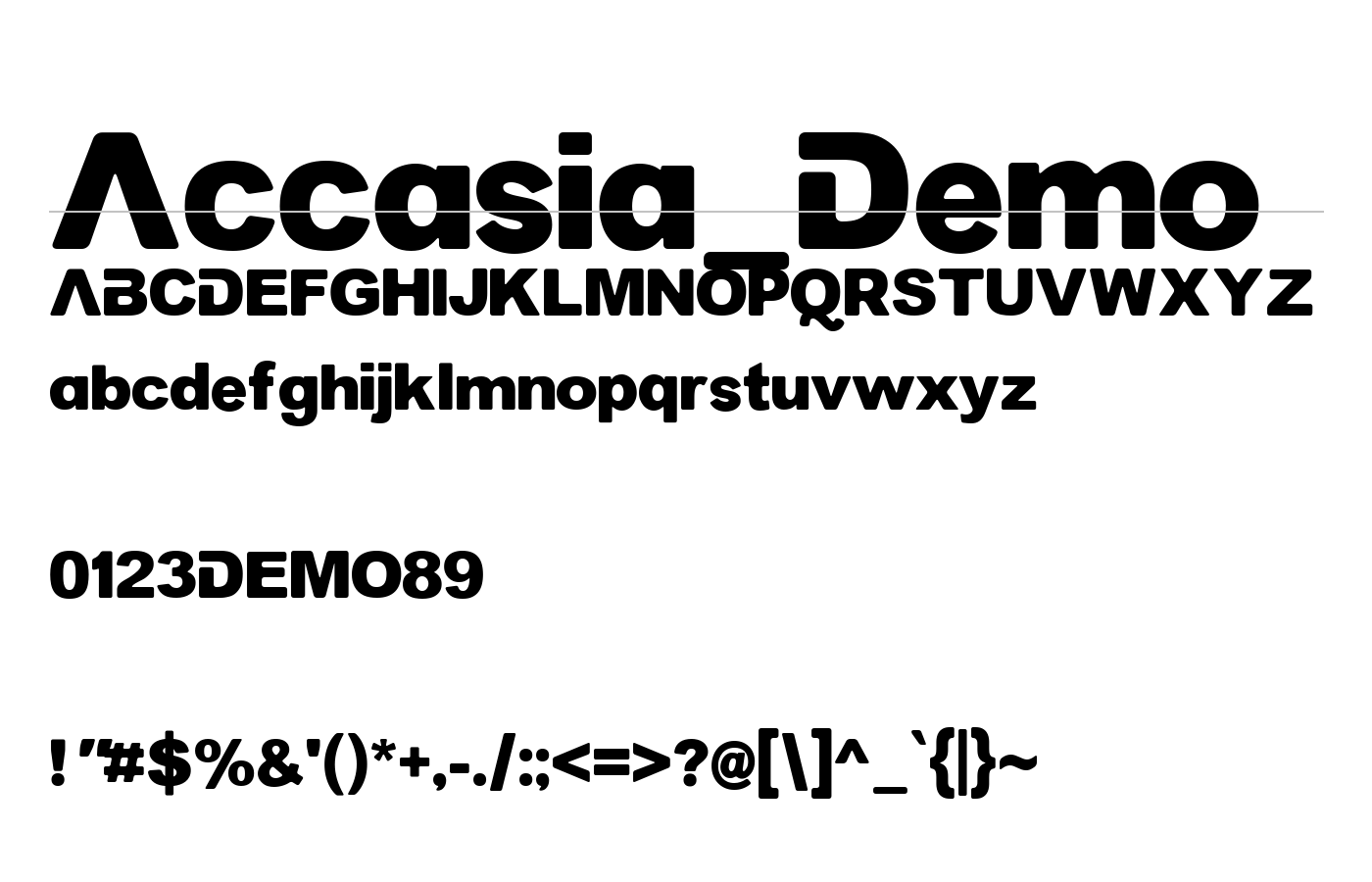
Accasia_Demo is a bold, geometric sans serif font with a distinctive, modern style characterized by thick, rounded strokes and unique letter shapes like the stylized "Q" and angular "D." Its strong presence and high legibility make it a great choice for headlines, logos, and branding that require a contemporary, playful, and confident look. This font works well in designs that want to stand out with a fresh, approachable personality while maintaining clarity.
Accasia_Demo Font
About Accasia_Demo Font